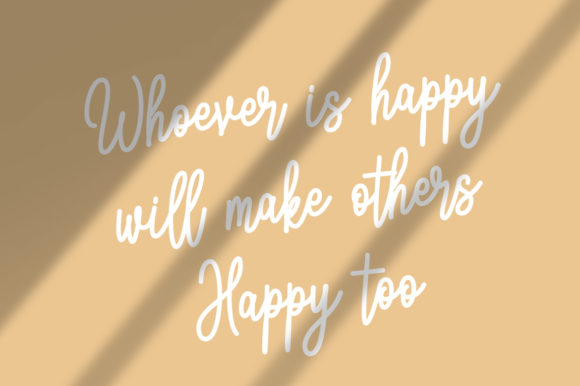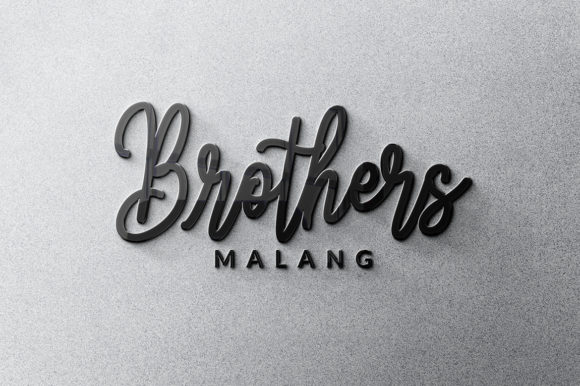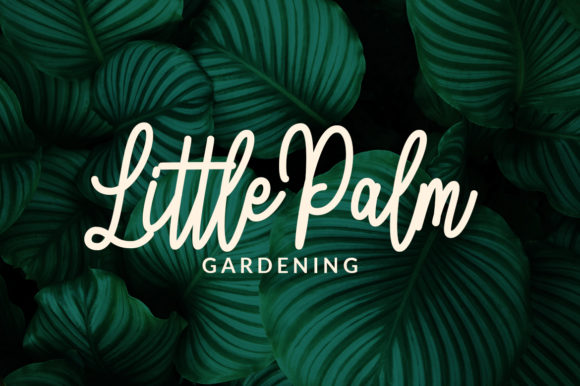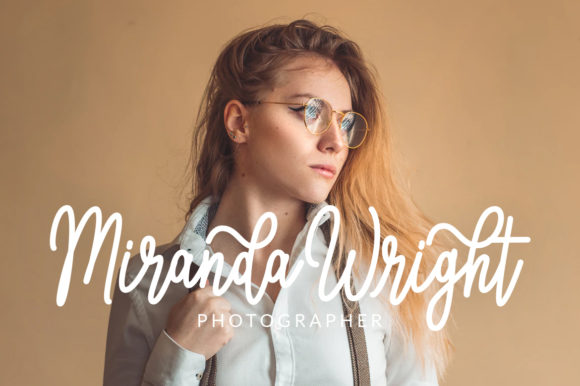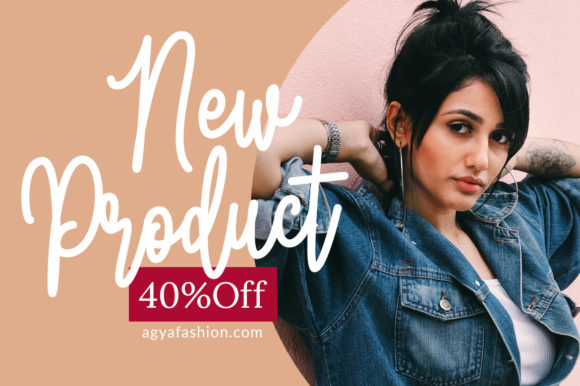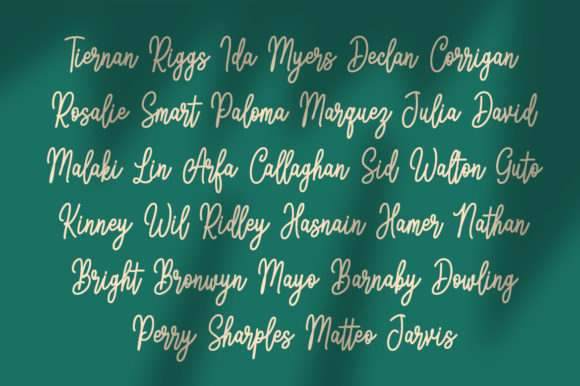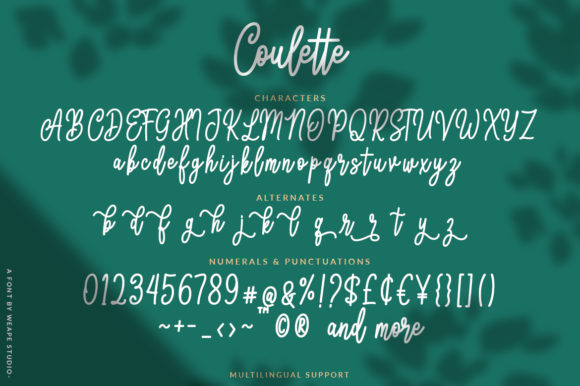
Coulette Font
About Coulette Font
“Introducing Coulette,” a flowing handwritten font that embodies elegance and timelessness. With its graceful touch, Coulette is a perfect choice for a variety of creative projects. Allow yourself to be captivated by its unique style and let it inspire you to create designs that are truly remarkable. Whether you’re working on branding, quotes, invitations, or any project that demands an elegant touch, Coulette invites you to embrace its distinct character and use it to craft designs that stand out.
Coulette’s allure lies in its flowing strokes and elegant curves, which effortlessly convey a sense of effortless beauty. Its distinct style seamlessly merges sophistication with a contemporary twist, making it a versatile choice for various design contexts. Whether you’re designing exquisite wedding invitations, conveying heartfelt messages, or enhancing your branding, this font adds a layer of sophistication that resonates deeply.
The timeless quality of Coulette ensures that it can adapt to different design styles and themes with ease. Its ability to evoke both elegance and modernity makes it a valuable asset for a wide spectrum of creative projects seeking to leave a lasting impact.
Witness how Coulette elevates your designs with its flowing and elegant touch. Whether you’re crafting intricate logos, designing captivating social media graphics, or producing eye-catching visuals, this font will infuse your work with a sense of grace and allure that captures the viewer’s attention.
Embrace the elegance of Coulette and make it an essential part of your design toolkit. Allow its flowing and timeless style to inspire your creations, transforming them into spectacular works that radiate sophistication and beauty. Whether you’re an experienced designer or an aspiring enthusiast, Coulette empowers you to craft visuals that exude elegance and leave a lasting impression. Let Coulette be the key to unlocking the beauty of flowing handwritten typography in your designs, and watch as it elevates your projects to new heights of excellence and timeless allure!